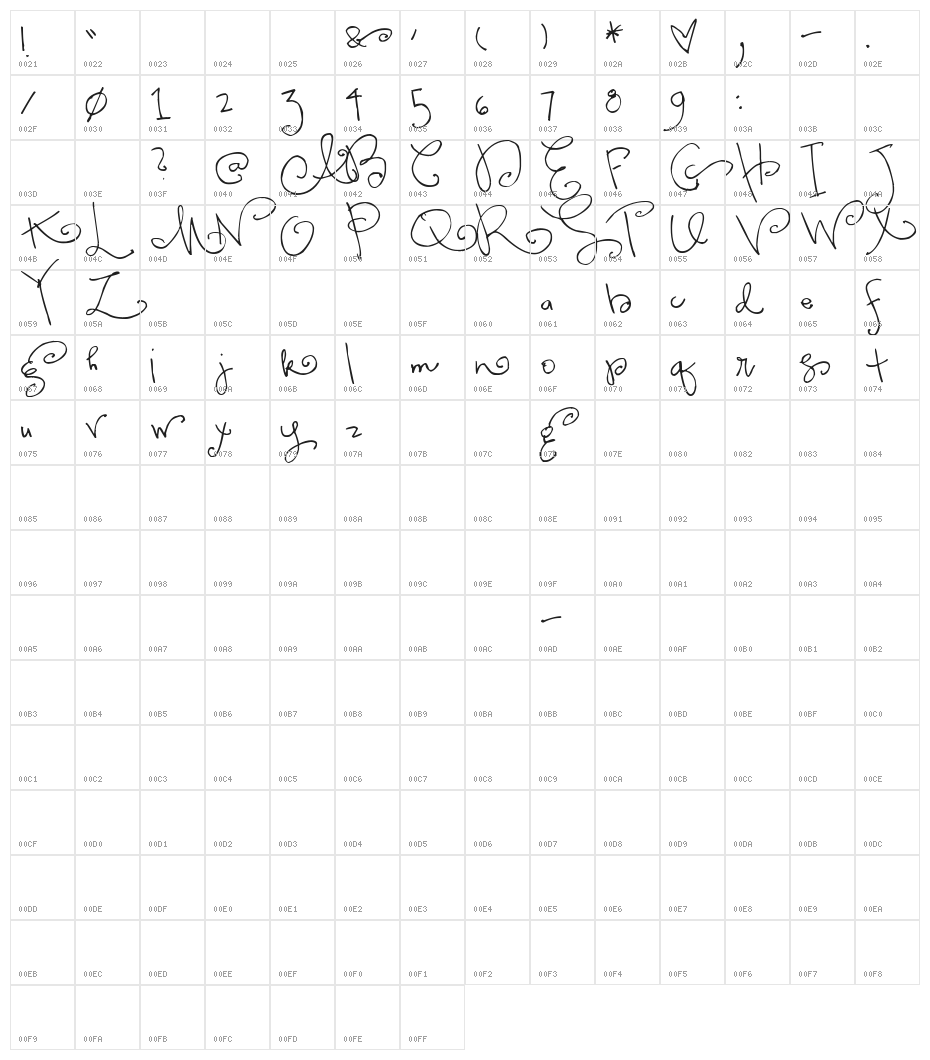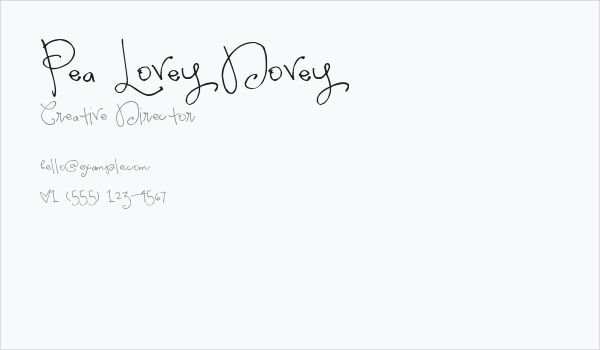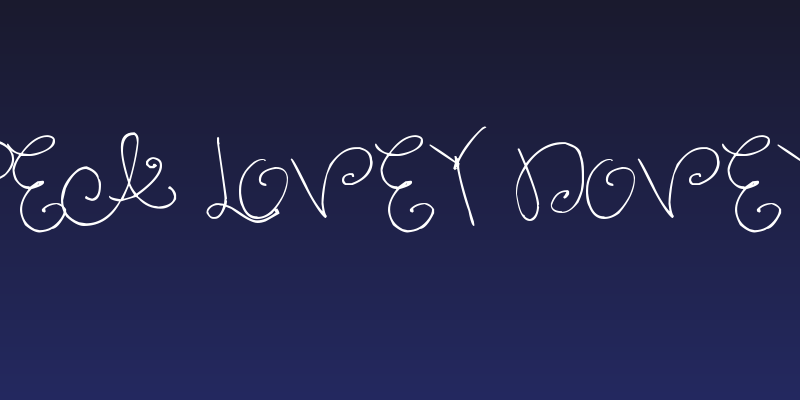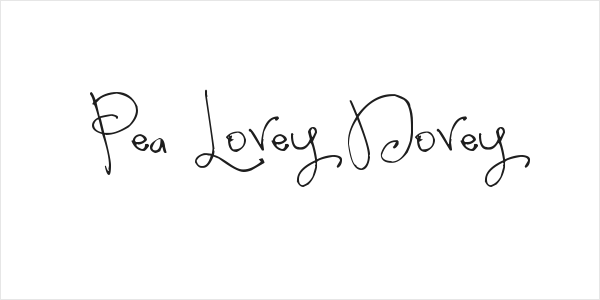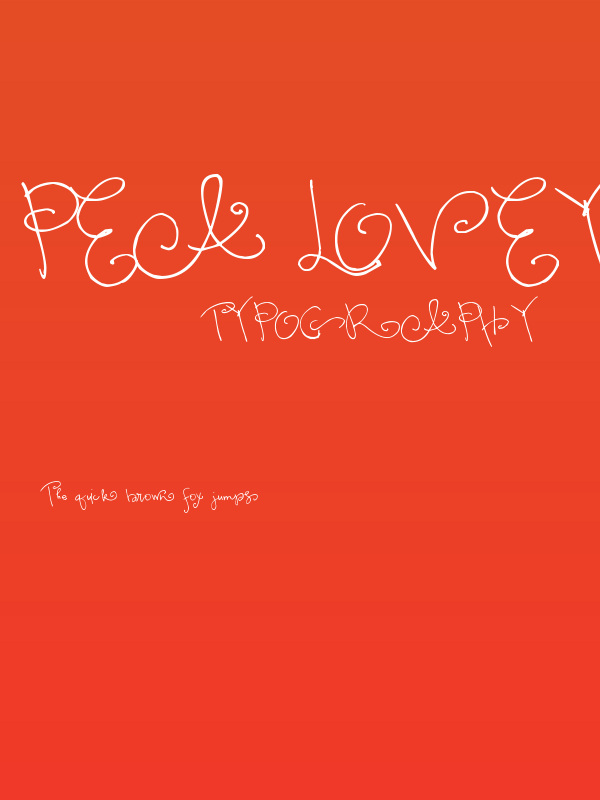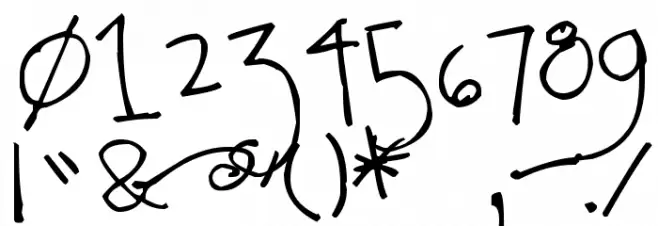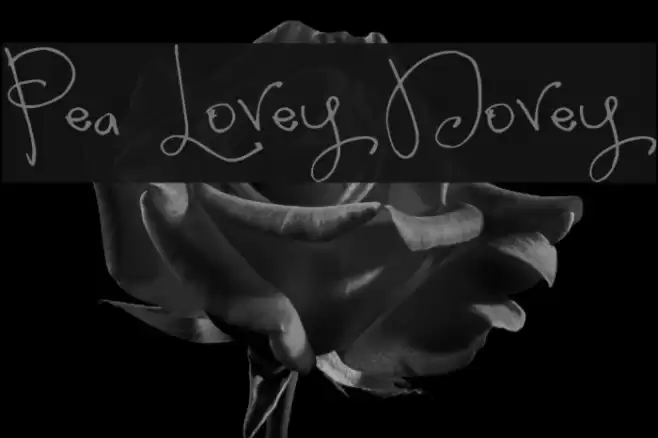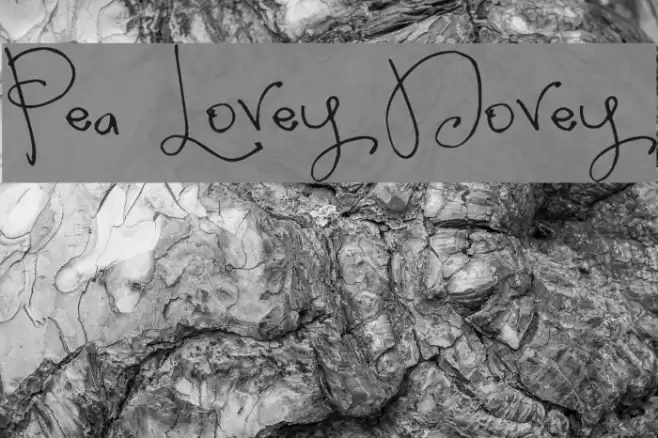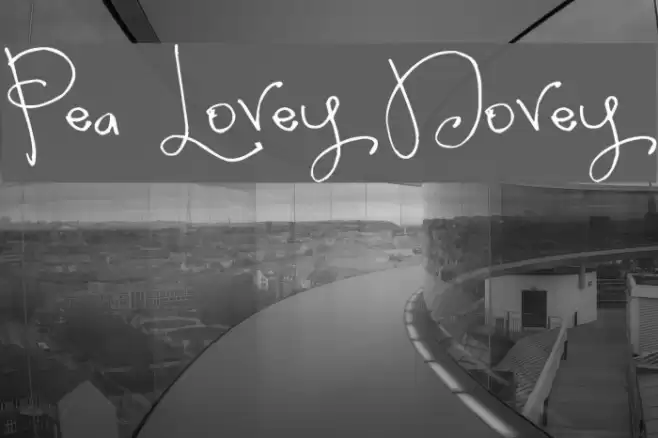
Pea Lovey Dovey Font
Pea Lovey Dovey Description
This font features a whimsical and playful script style, characterized by its flowing, curly lines and loops. The uppercase letters are particularly ornate, with exaggerated swirls that add a sense of elegance and flair. The lowercase letters maintain a consistent style, with some characters extending below the baseline, adding to the font's dynamic appearance. The numerals are equally stylized, with a handwritten feel that complements the overall design. Special characters like the ampersand and asterisk are creatively integrated, enhancing the font's decorative quality. This font is ideal for projects that require a personal, artistic touch.
| Use Case | Logos, Invitations, Artistic projects |
| Proposed Projects | Ideal for wedding invitations, greeting cards, personal branding, and artistic projects that require a personal touch. |